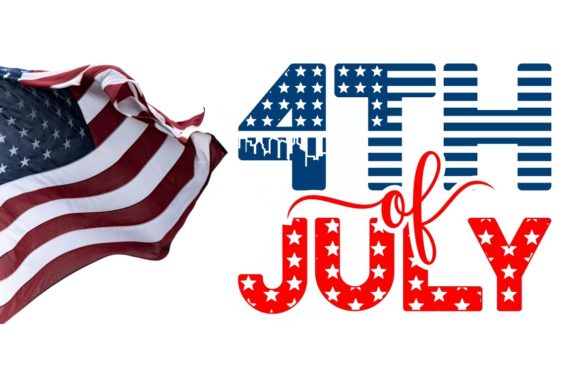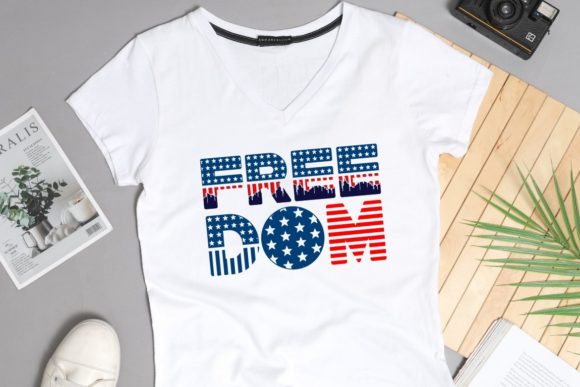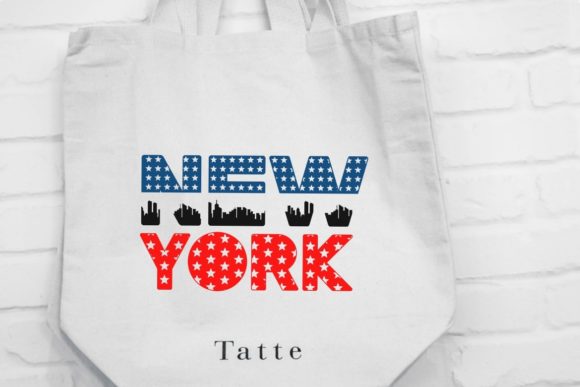
Introduction to Merica Font
As I rummaged through my grandma’s attic, I stumbled upon an old trunk filled with memories of our family’s 4th of July celebrations. Amidst the faded photographs and yellowed letters, one thing caught my eye – a hand-drawn banner with bold, red, white, and blue letters that read “Happy 4th of July.” It was then that I fell in love with the spirit of patriotism and the joy of creative expression. And that’s exactly what the Merica Font embodies – a unique display font that’s perfect for adding a dash of patriotism to your next creative project.
For designers, having access to high-quality design resources like the Merica Font can be a game-changer. Not only does it offer a free download, but it also comes with a transparent background, making it easy to integrate into any design project. Whether you’re working on a 4th of July-themed craft or a patriotic design project, the Merica Font is sure to add a touch of elegance and sophistication.
Key Features of Merica Font
- High-quality, modern design font suitable for various creative projects
- Designed to be versatile and adaptable, making it perfect for a wide range of creative projects
- Includes a comprehensive character set, including uppercase and lowercase letters, numbers, and special characters
Honest Review: Merica Font
As a designer, I’m always on the lookout for new design resources to elevate my creative projects. Recently, I stumbled upon the Merica Font, and I was excited to give it a try.
First impressions: the Merica Font is a high-quality, bold font that’s perfect for making a statement. The font comes in a variety of weights and styles, making it easy to customize to fit your design needs. I particularly love the transparent background option, which gives you the flexibility to place the text anywhere on your design without any distractions.
What works well: ✨ The Merica Font is incredibly versatile and can be used for a wide range of creative projects, from logos and branding to advertising and editorial content. The font is also highly legible, making it perfect for large-scale typography.
Limitations: ⚠️ While the Merica Font is free to download, the selection of languages is limited, which may be a concern for designers working on international projects. Additionally, the font may not be suitable for fine typography or small-scale text.
Overall impression: I’m impressed with the Merica Font, and I think it’s a great addition to any designer’s toolkit. With its high quality, versatility, and transparent background option, it’s a great choice for designers working on creative projects.
Recommendation: If you’re looking for a bold, high-quality font for your design projects, I highly recommend giving the Merica Font a try. Just be aware of the limitations mentioned above.
- High-quality, bold font
- Varied weights and styles
- Limited language selection
- May not be suitable for fine typography or small-scale text
Tips for Getting the Most Out of Merica Font
For a high-quality design, use the Merica Font with a transparent background to create a clean and modern look. You can also experiment with different font sizes and colors to add depth and visual interest to your design.
Common Use Cases for Merica Font
The Merica Font is ideal for creative projects that require a bold, modern, and professional look. Common use cases include logos, branding materials, and marketing materials, as well as presentations, reports, and documents.